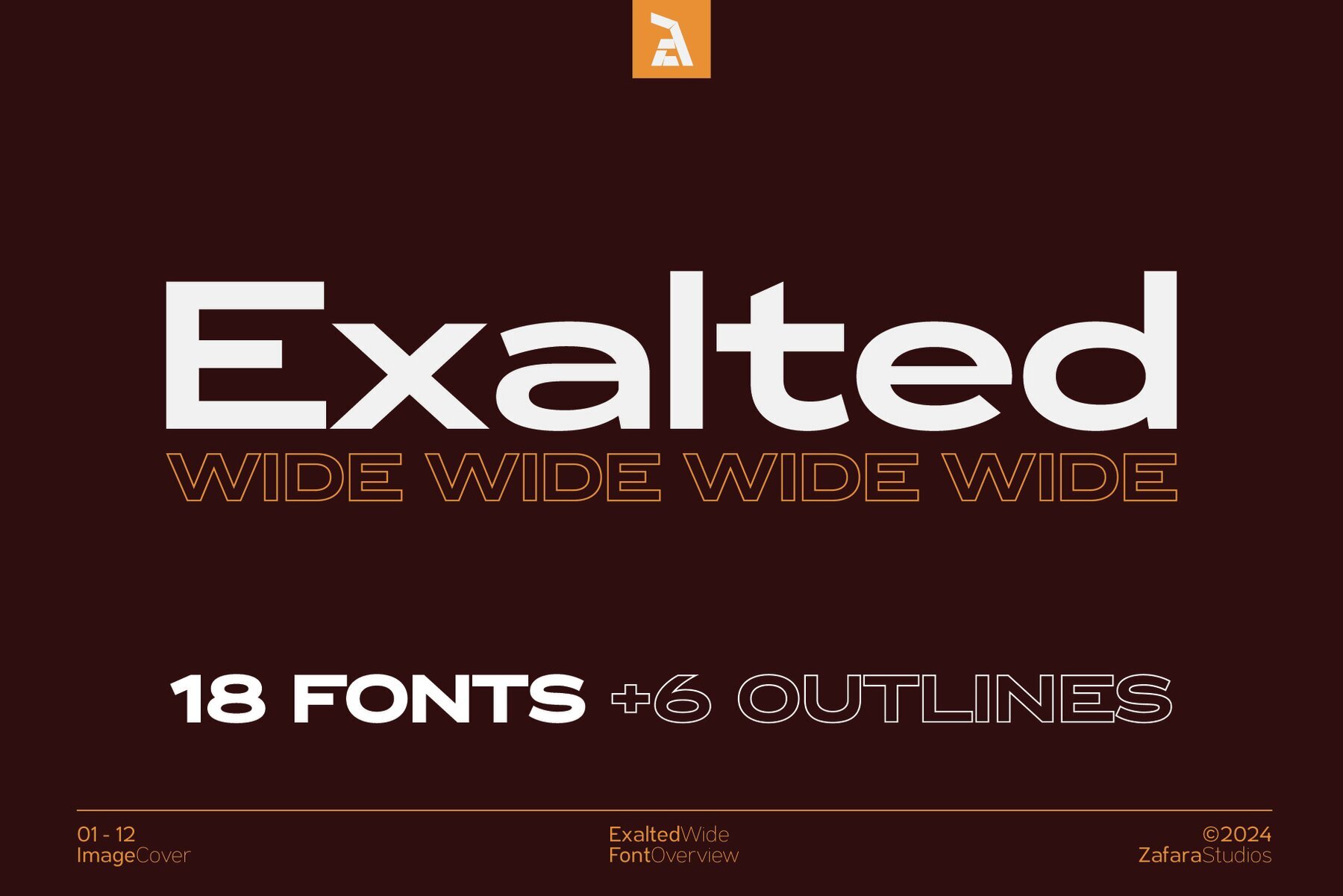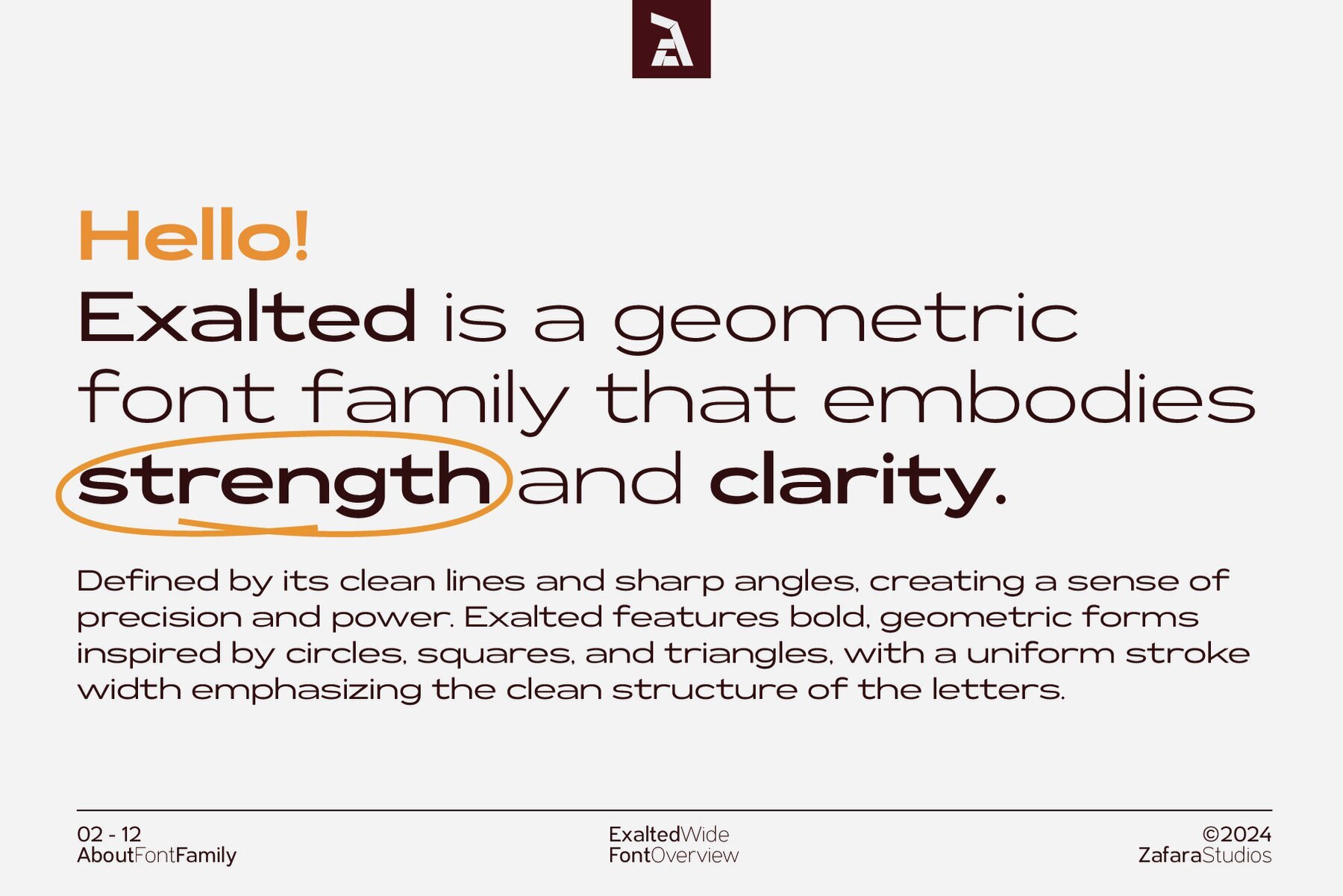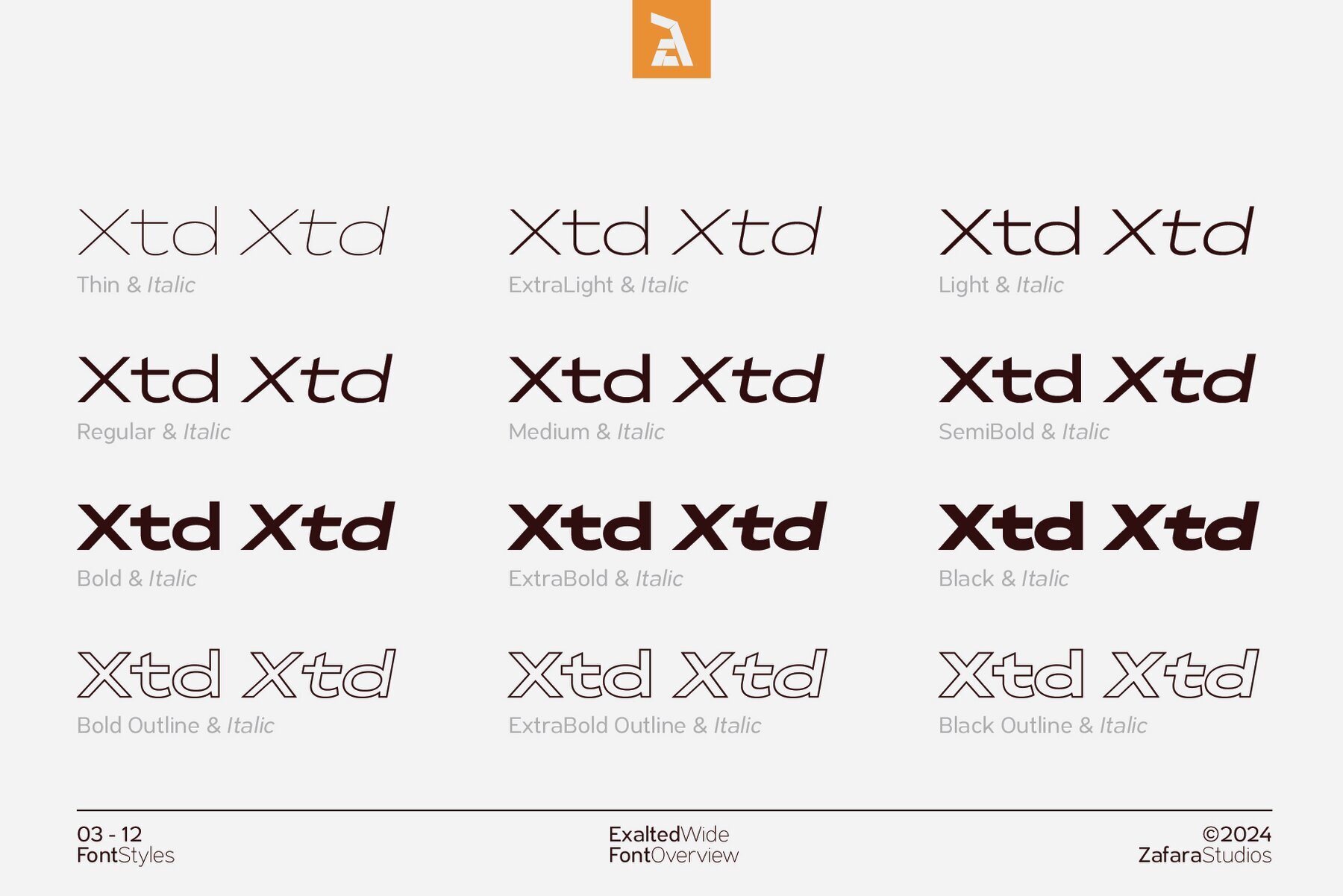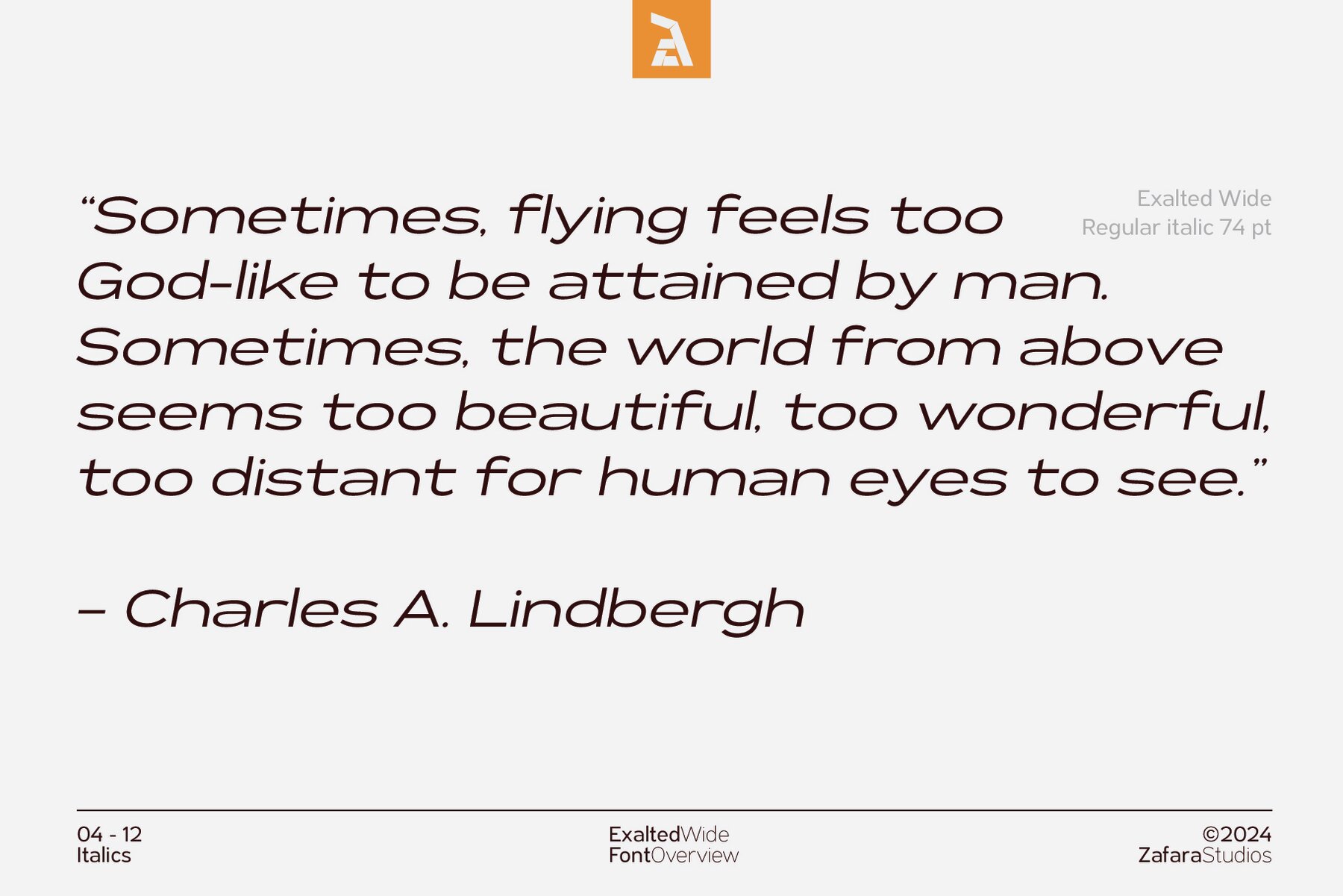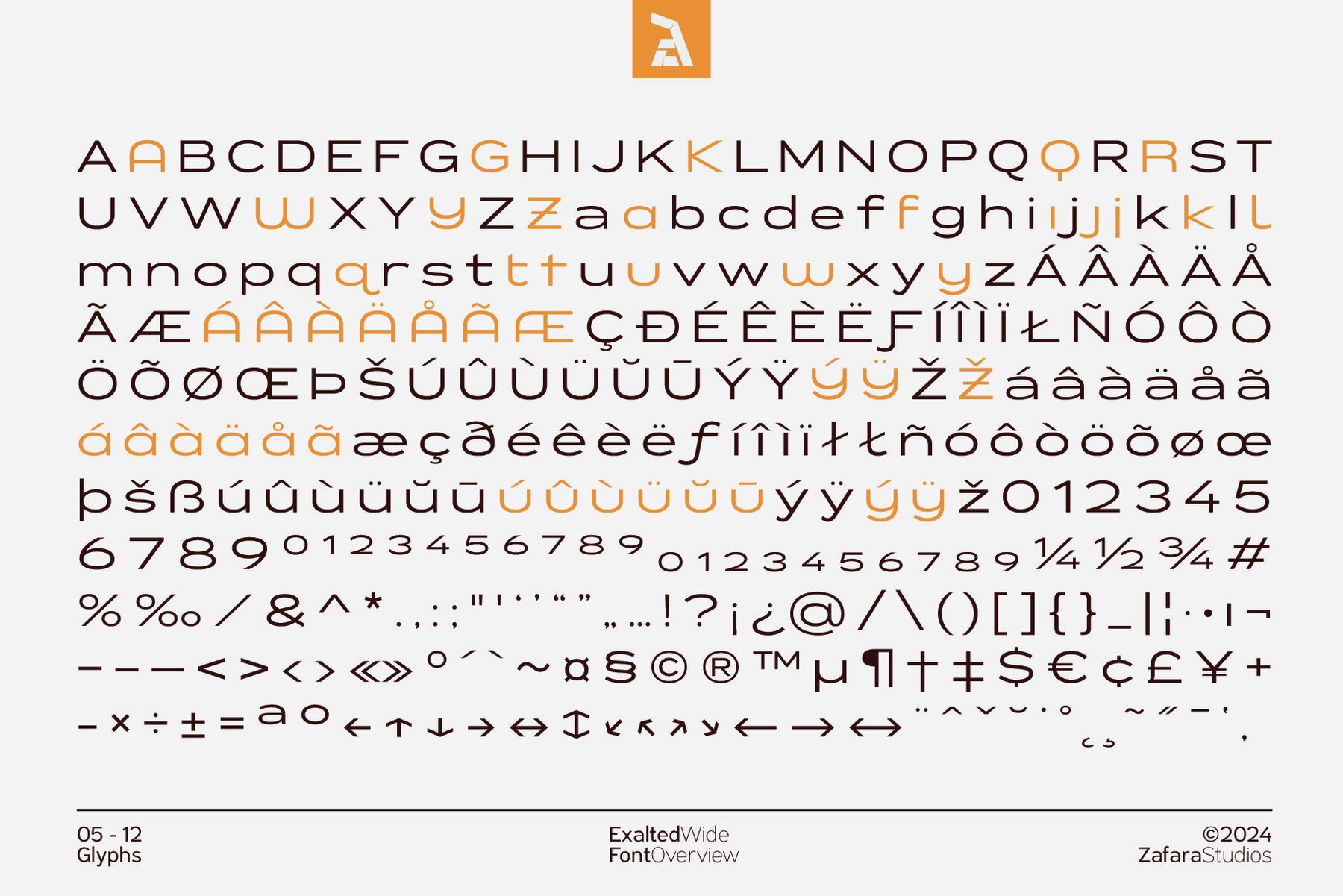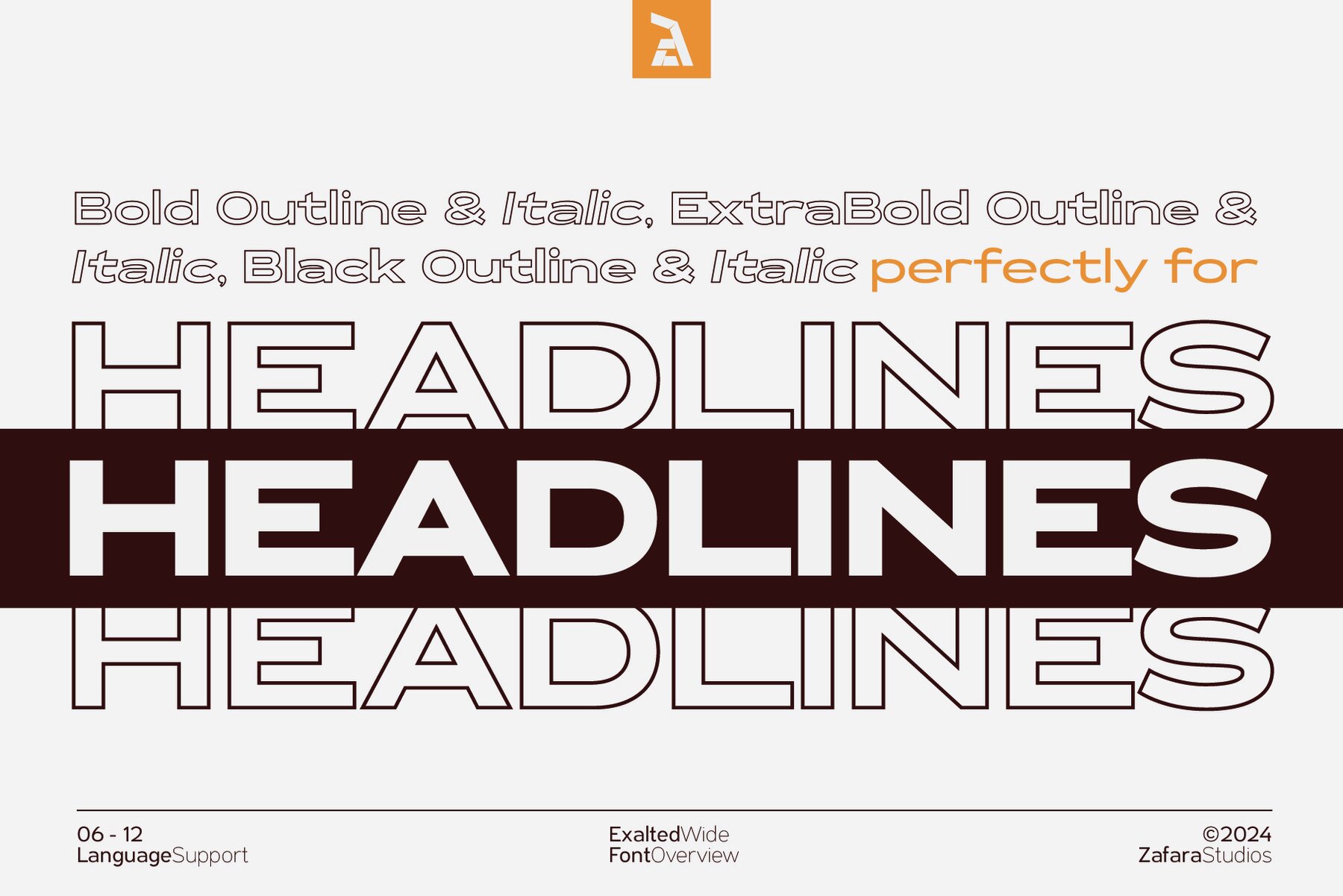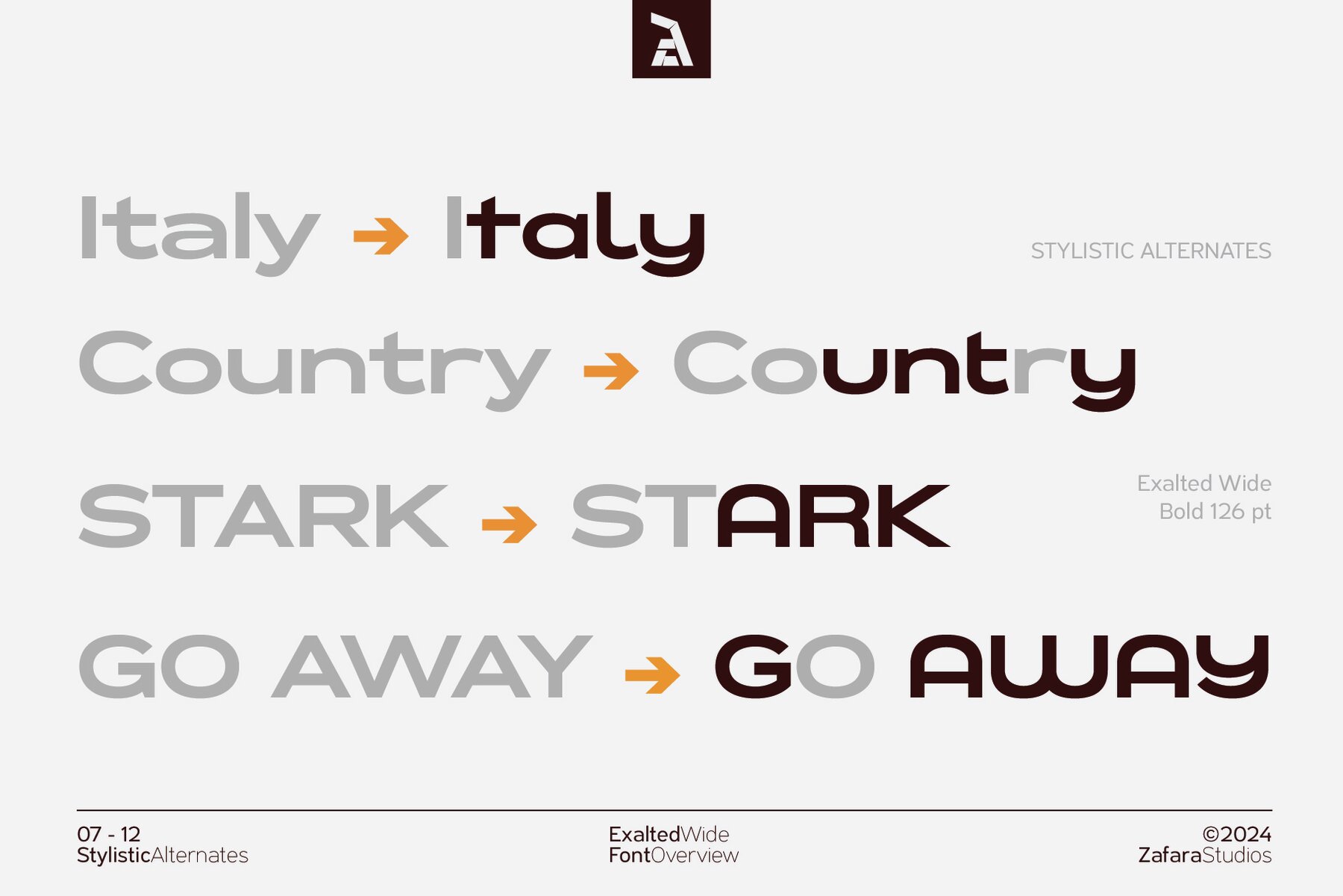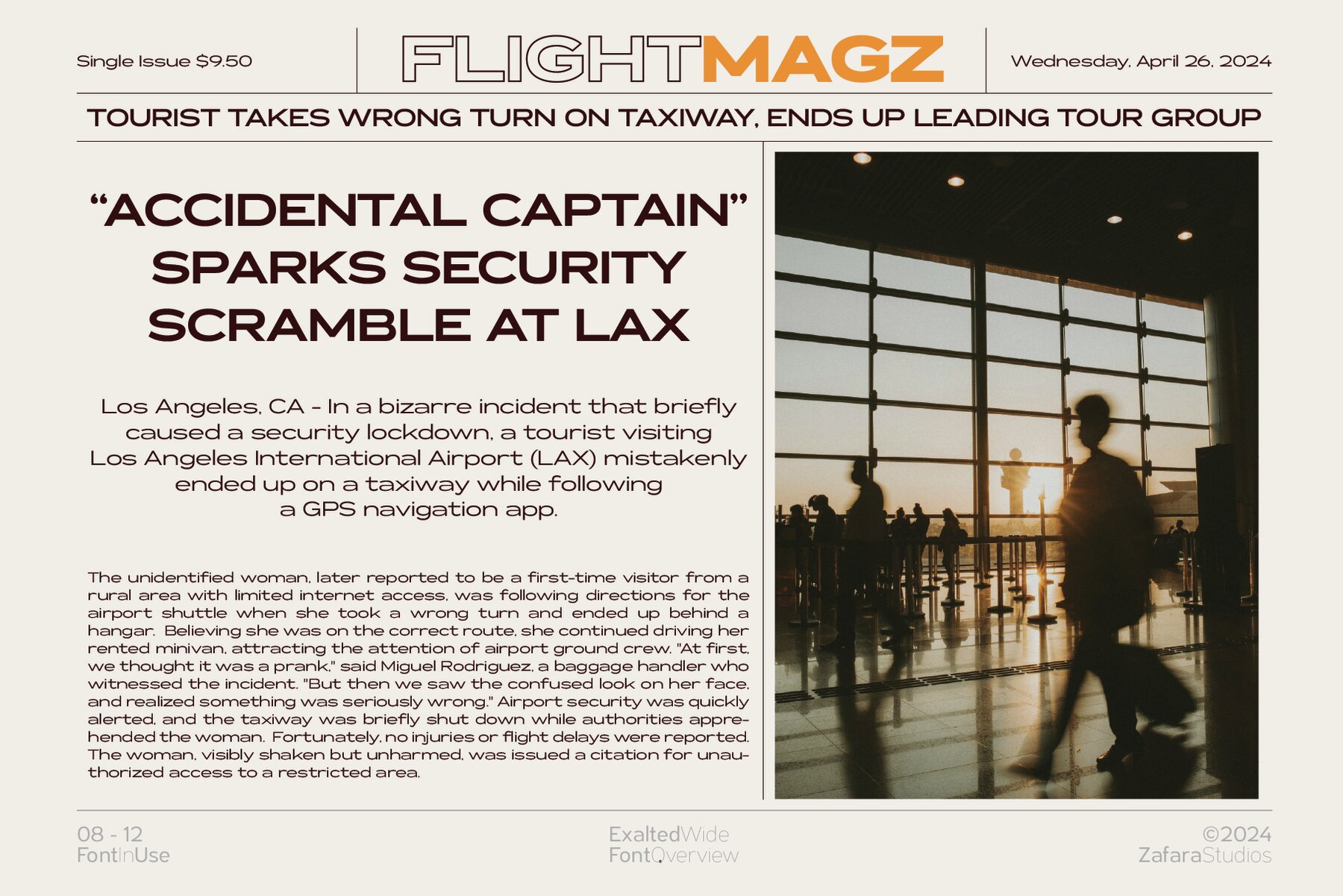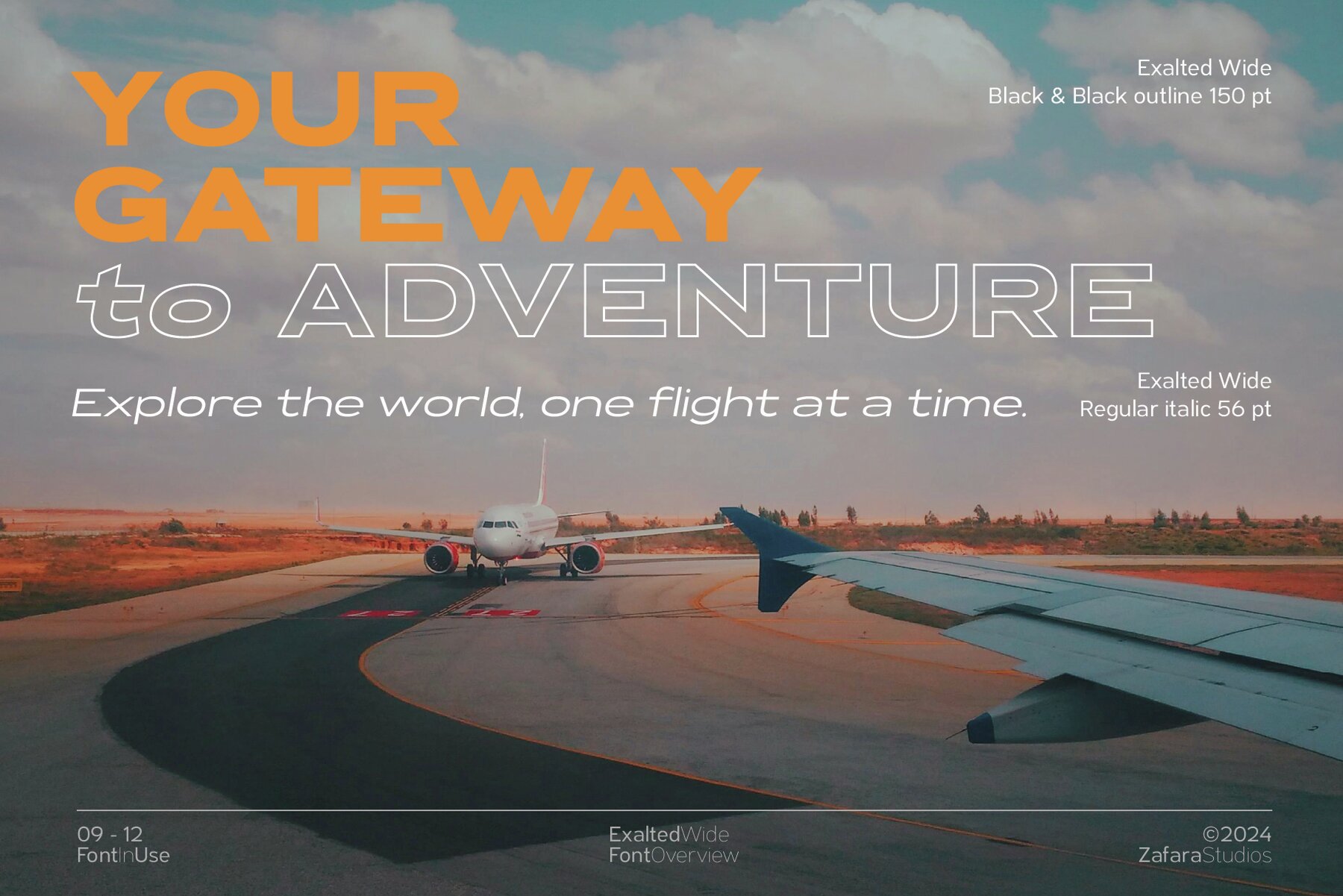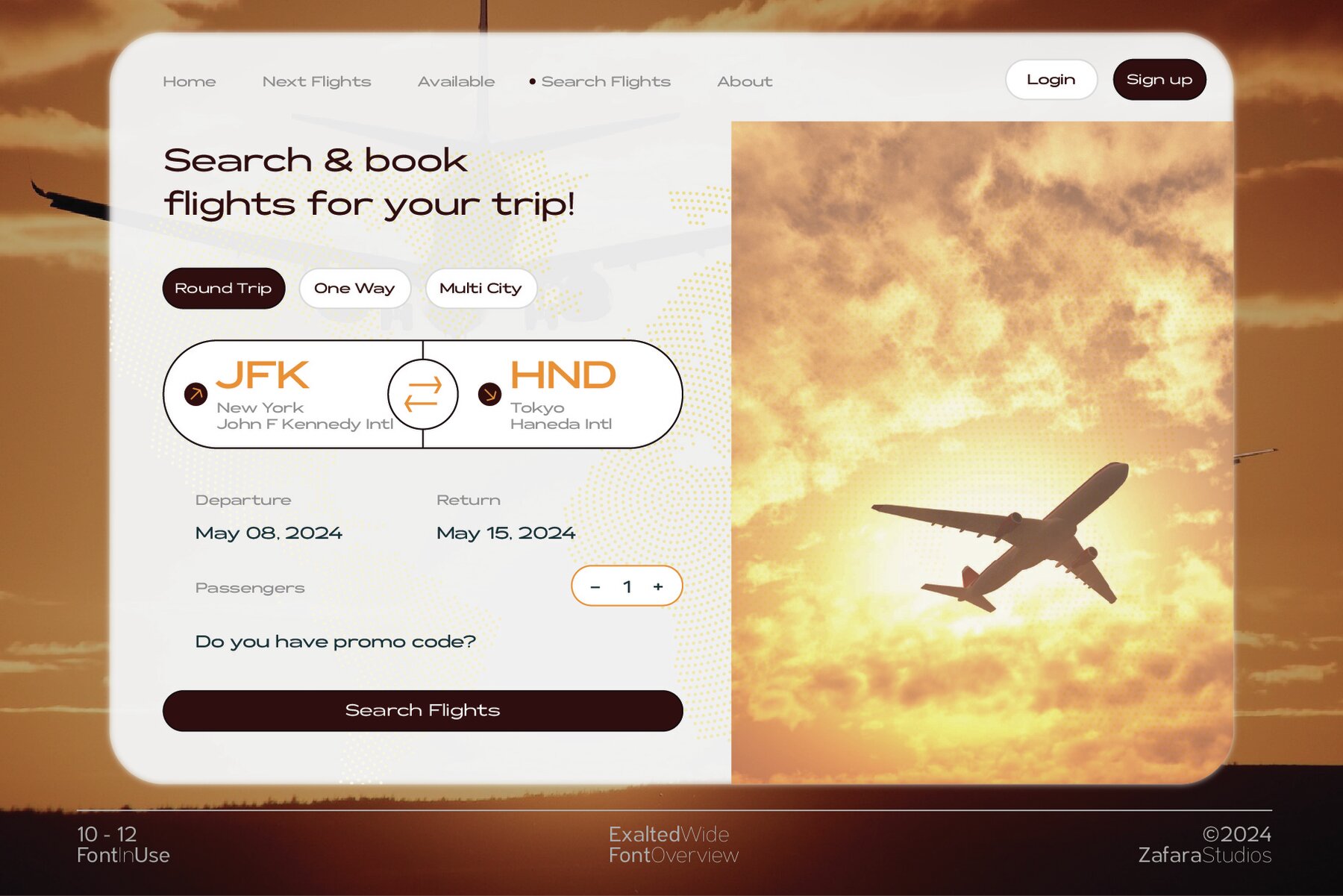
Exalted Wide Font
Exalted Wide is a geometric font that embodies strength and clarity. Defined by its clean lines and sharp angles, creating a sense of precision and power. Exalted features bold, geometric forms inspired by circles, squares, and triangles, with a uniform stroke width emphasizing the clean structure of the letters. Exalted Wide can fulfill all types of needs such as editorial design, branding, graphic design, signage, logos, apps, websites, eBooks, print media such as flyers, brochures, magazines, and all kinds of purposes that are suitable for this font. The details: